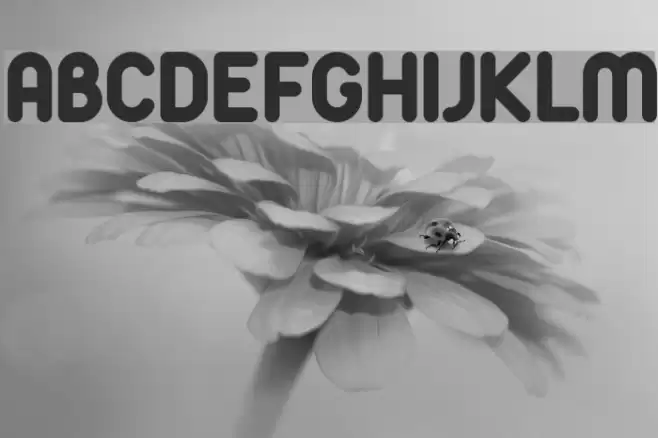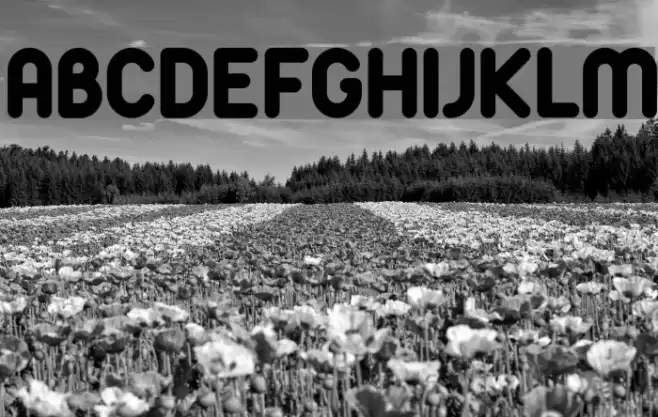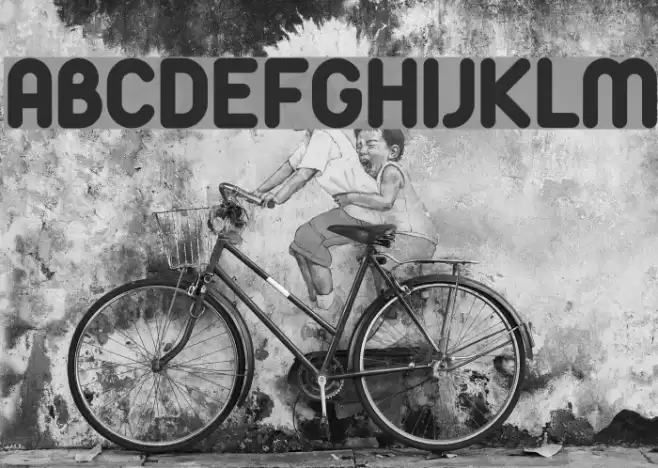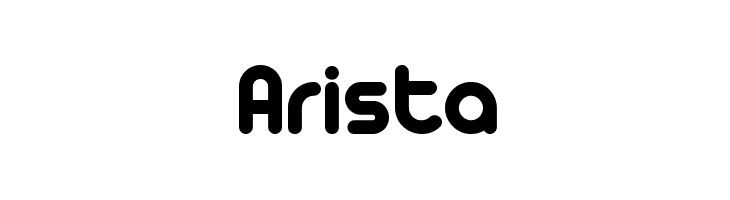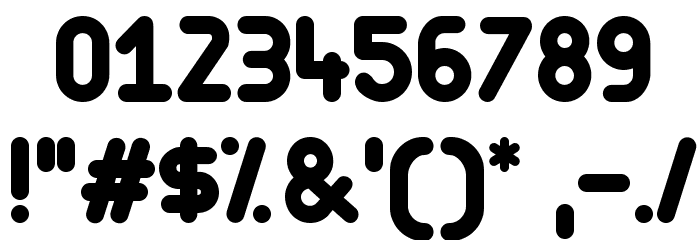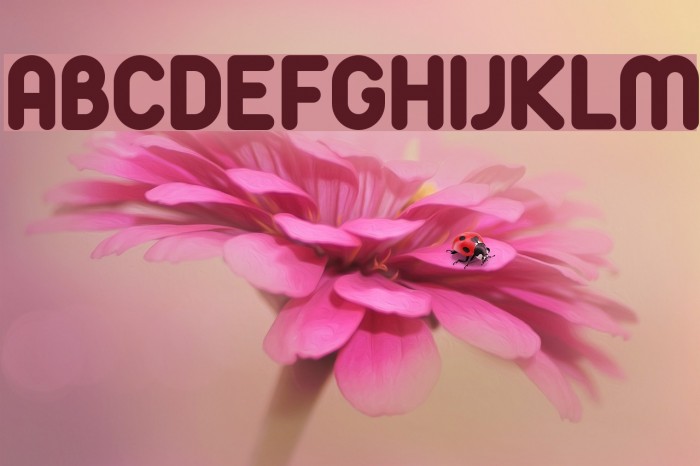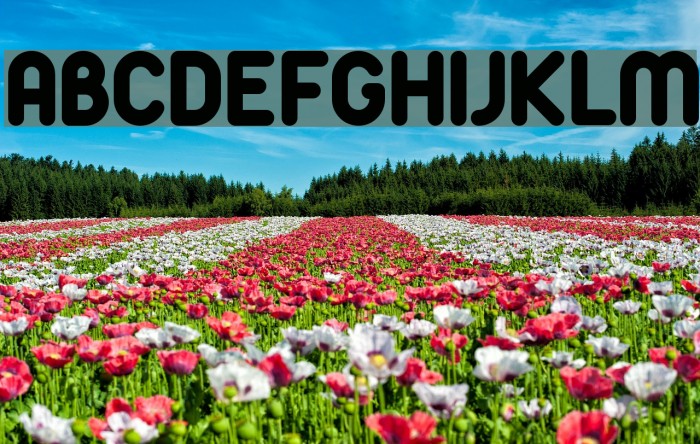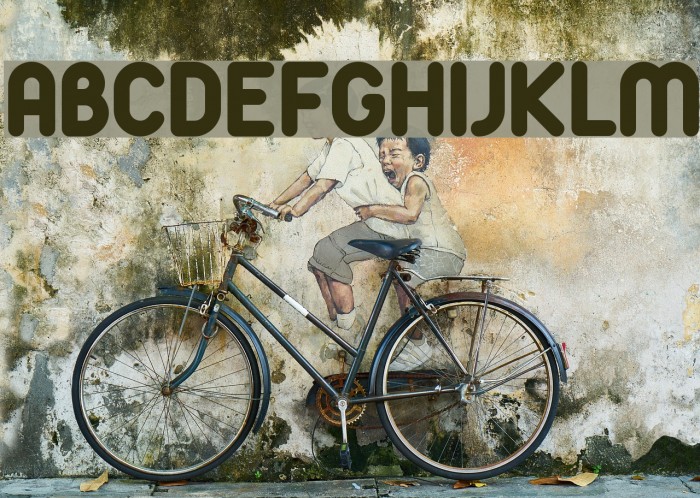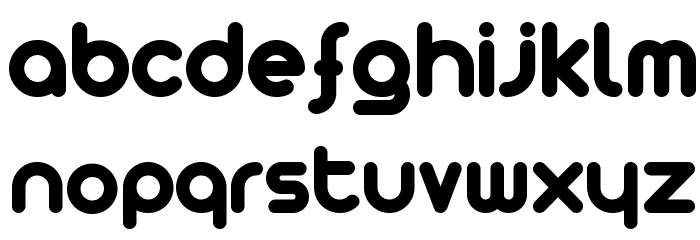
Arista Font
Arista Description
This font features a rounded, geometric sans-serif style with a playful and modern aesthetic. The characters are bold and uniform, with smooth curves and consistent stroke widths that create a friendly and approachable appearance. The uppercase and lowercase letters maintain a harmonious balance, while the numerals and special characters are designed to complement the overall style. The font's simplicity and clarity make it versatile for various design applications, offering a clean and contemporary look.
A rounded, geometric sans-serif font with a playful and modern aesthetic from Uncategorized fonts.
- Proposed Projects: Ideal for branding, advertising, children's books, and digital interfaces where a friendly and modern look is desired.
- Use Case: Headlines, Logos, Digital Interfaces